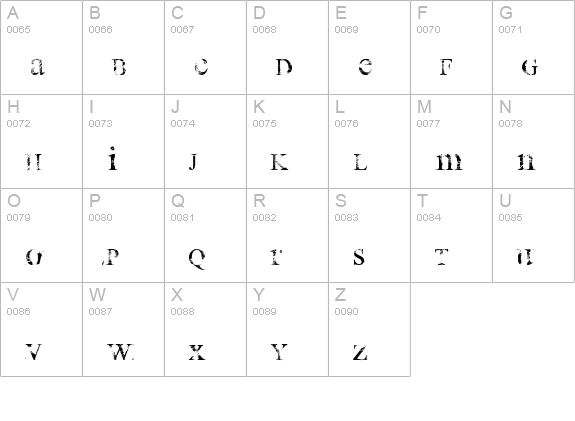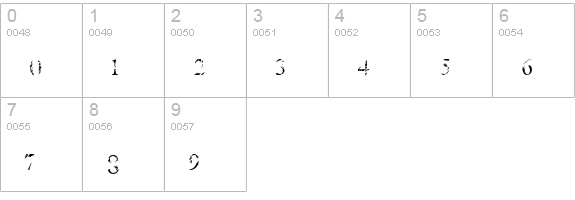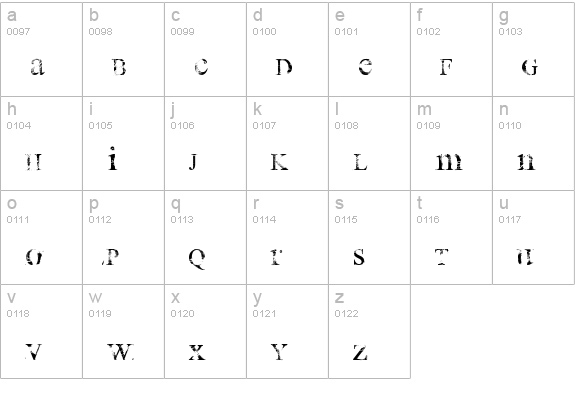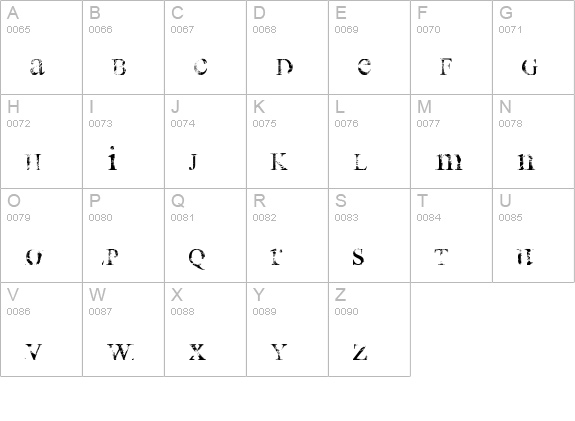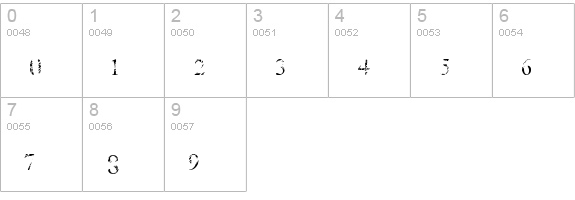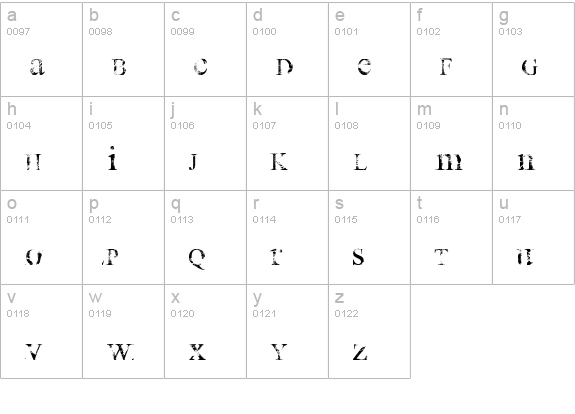
all used up Font Details
The all used up font is a captivating and unique typeface that exudes a sense of nostalgia and personality. With its worn-out appearance and vintage charm, this font is perfect for adding character and depth to your designs. The distressed edges and imperfect shapes give this font a handmade feel, making it ideal for projects that require a touch of authenticity and originality. Best of all, the all used up font is freely available to download at FontsMarket.com. So whether you're working on a branding project, a vintage-inspired poster, or a creative social media graphic, this font is sure to make a statement and set your design apart. Don't miss out on this one-of-a-kind typeface that brings a sense of history and character to any project. Download it for free today at FontsMarket.com and unleash its full potential in your designs.